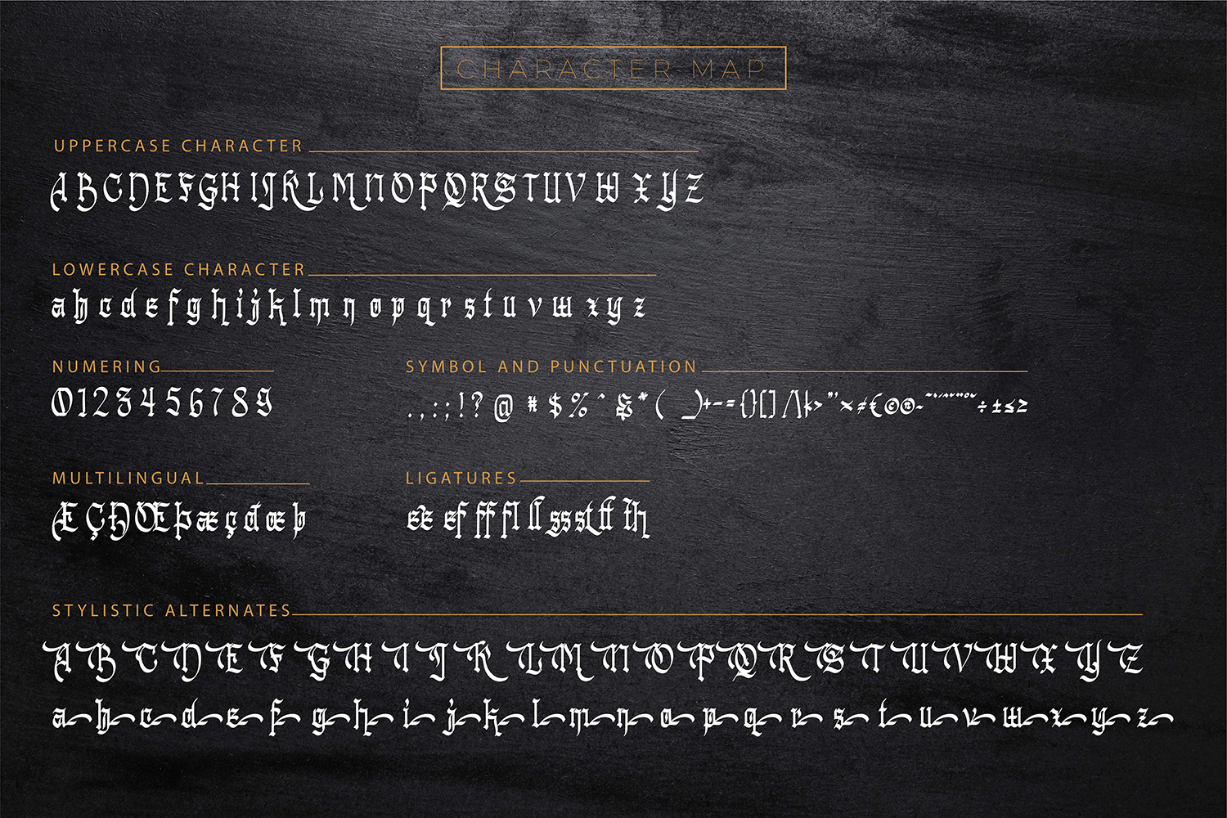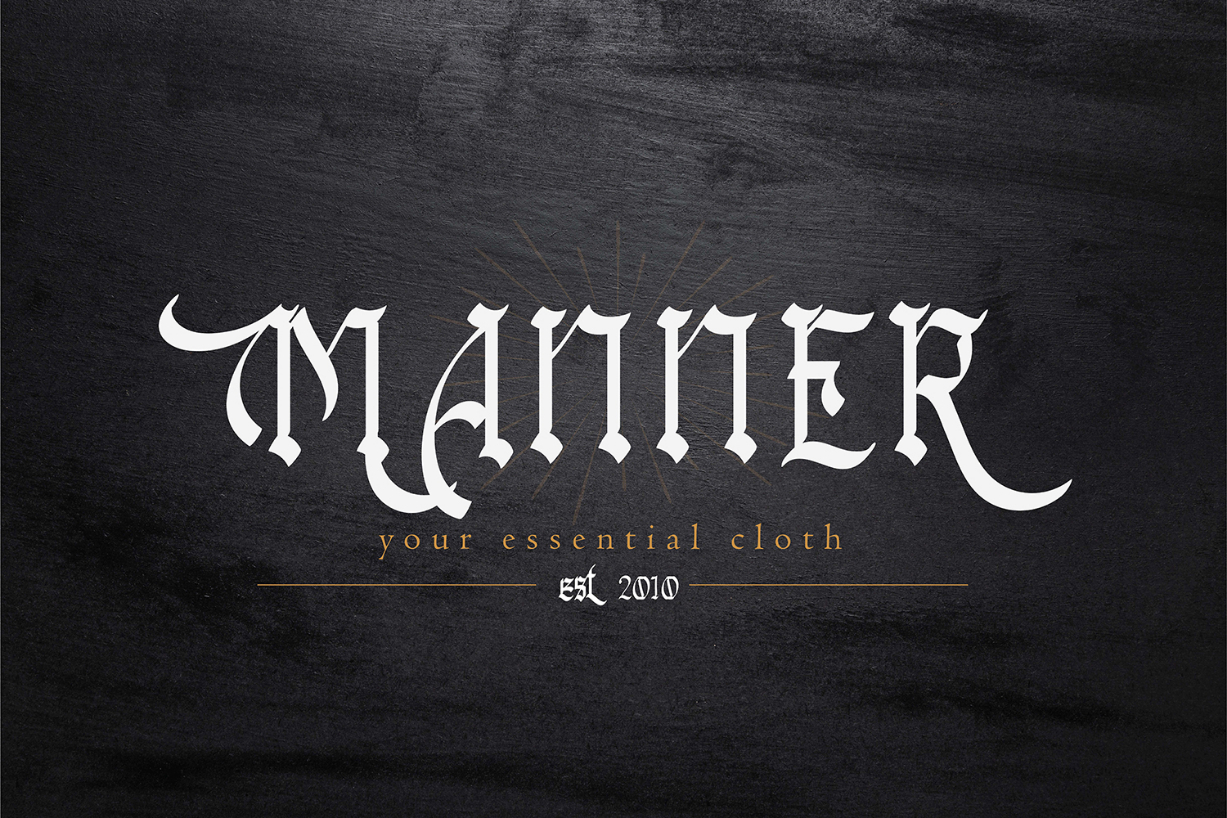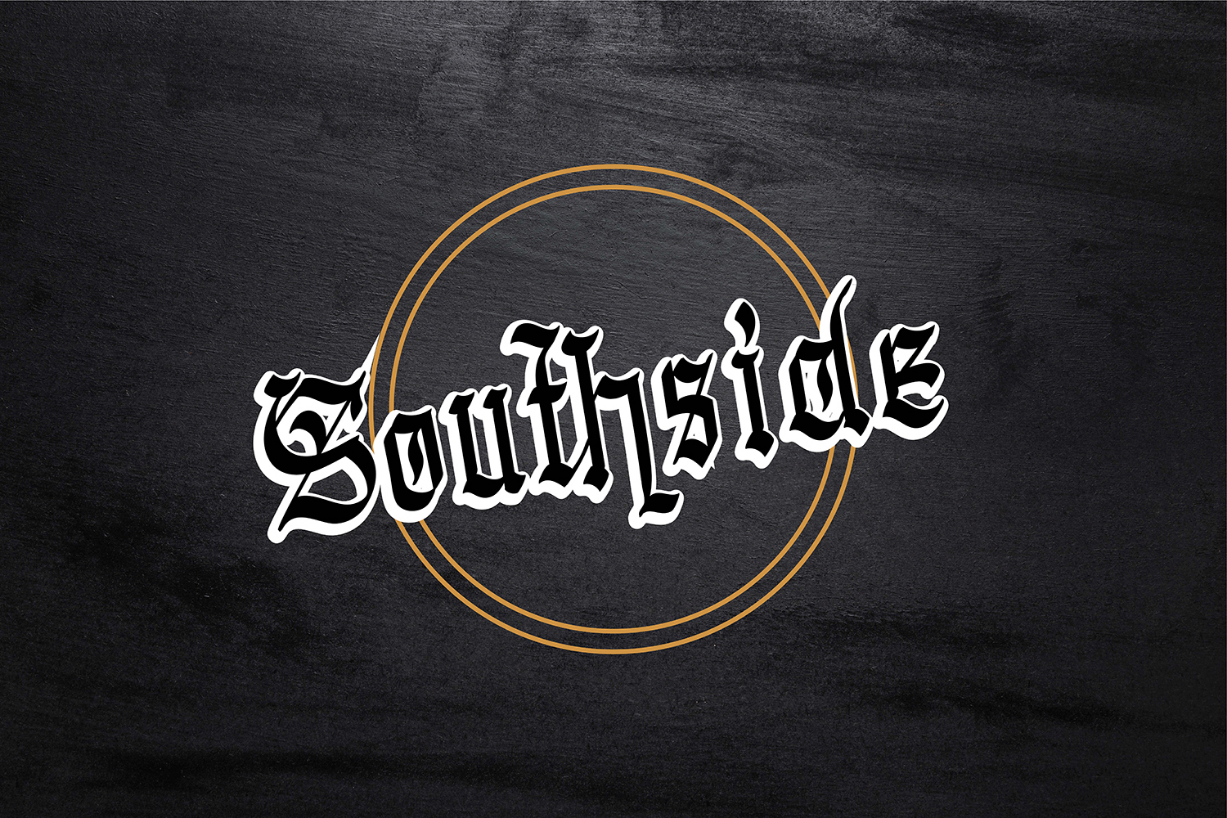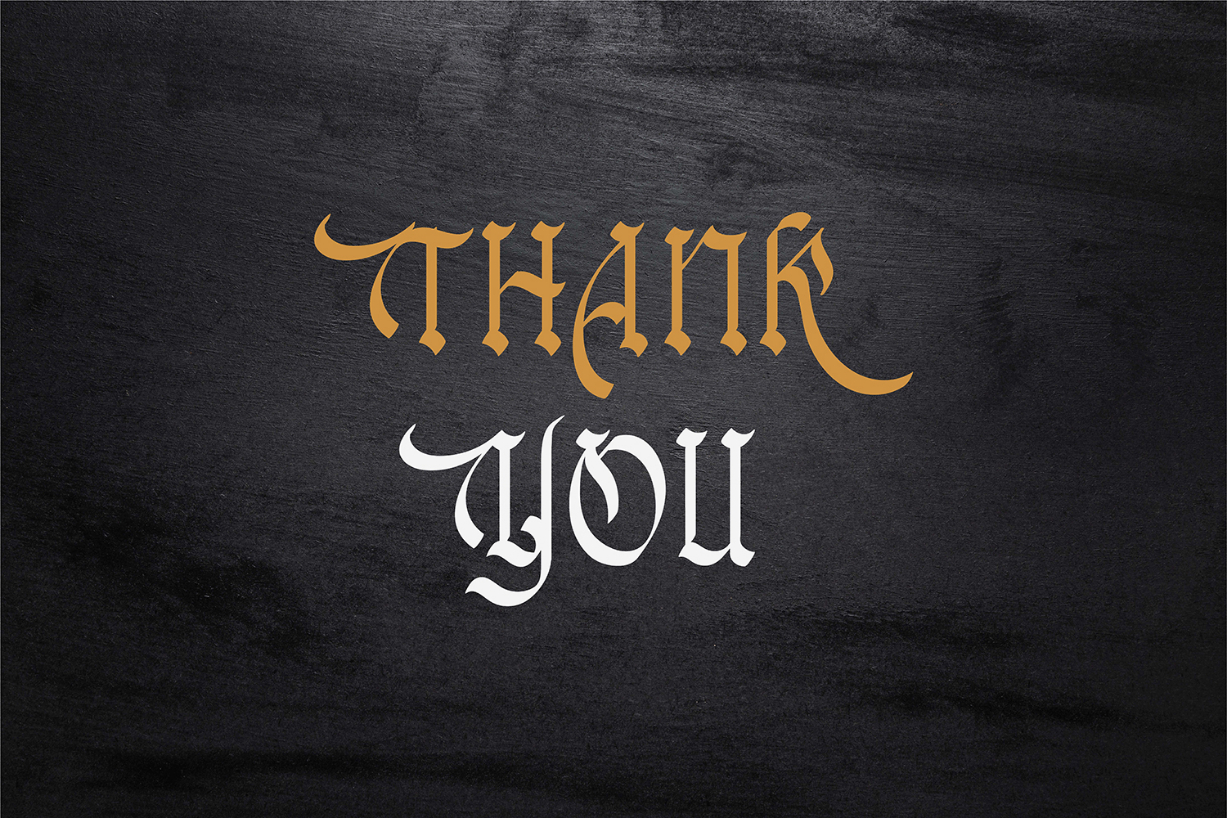
About San Meira Font
San Meira is an elegant blackletter font with a calligraphy style that will look so beautiful featured on invitations, greeting cards, branding materials, business cards, quotes, posters, and more!